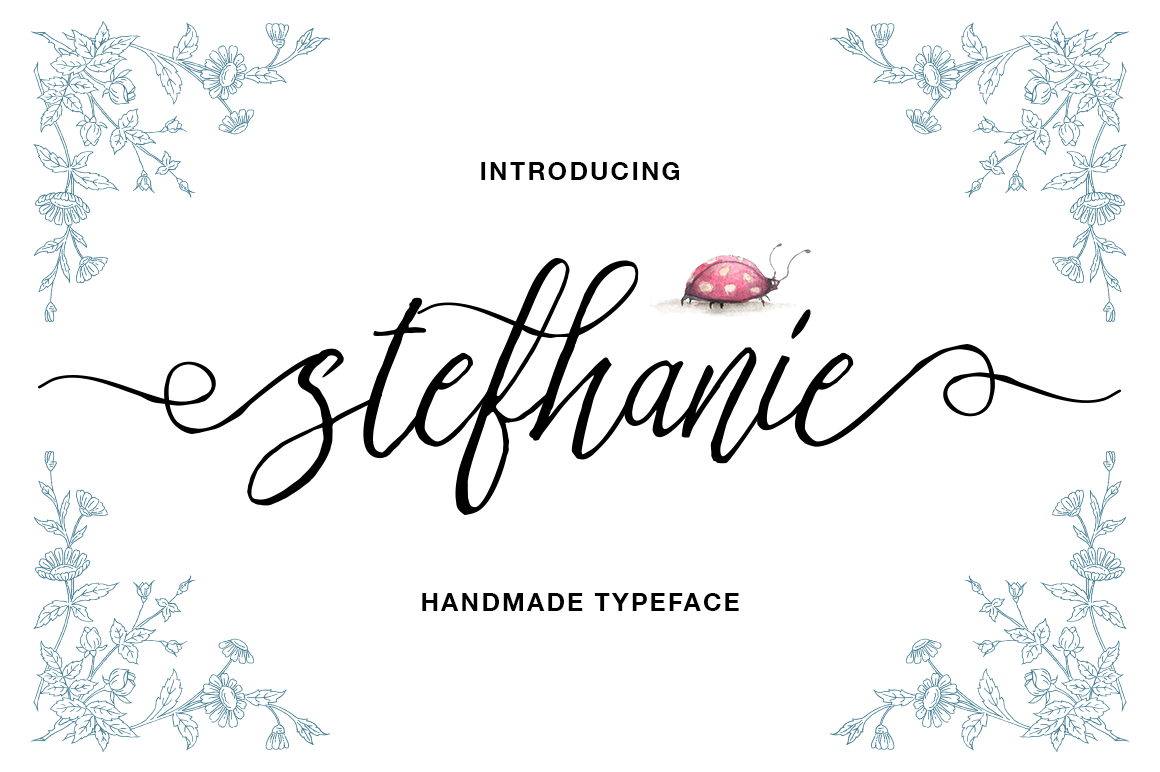
Stefhanie Font
Stefhanie Font is perfect for elegant branding, romantic wedding invitations, feminine beauty products, sophisticated fashion magazines, luxury boutiques, graceful social media graphics, upscale greeting cards, refined editorial design, delicate jewelry catalogs, charming lifestyle blogs, intimate stationery, and sophisticated personal branding.
What makes Stefhanie Font exciting is its graceful femininity that captures the essence of contemporary elegance and sophisticated charm through delicately crafted letterforms that exude refined beauty and timeless appeal. This enchanting typeface embodies the perfect balance of strength and softness, combining flowing curves with confident structure that resonates with audiences seeking authentic elegance and feminine sophistication. The font's gentle character and meticulous attention to detail convey quality and exclusivity while maintaining the warmth and approachability that connects emotionally with discerning women. Its refined personality makes it perfect for brands that want to communicate femininity, grace, and authentic luxury without appearing overly decorative or sacrificing professional credibility.
The Stefhanie Font family includes light, regular, and medium weights, each available with corresponding italic styles. The comprehensive family features elegant alternates, graceful ligatures, and sophisticated flourishes that enhance the font's refined character and provide designers with extensive feminine luxury typography options for complete brand systems.
Whether you're creating feminine luxury brands, designing romantic marketing materials, or developing sophisticated women-focused communications, Stefhanie Font Free Download delivers the elegant charm your refined feminine projects require. This premium typeface excels in applications where grace and emotional connection are crucial for brand positioning and audience engagement in luxury women's markets. The font's sophisticated qualities work beautifully across digital platforms and premium print applications, making it an essential tool for designers creating memorable experiences for style-conscious women. Beauty brands and feminine lifestyle companies choose this font for its ability to communicate elegance while maintaining perfect readability and contemporary relevance. The extensive character set supports multiple languages and includes specialized feminine symbols, expanding its versatility for international luxury women's applications and multilingual sophisticated communications. Professional designers appreciate its seamless performance across various media while maintaining consistent brand expression and emotional resonance with female audiences. When you incorporate this exceptional typeface into your feminine luxury communications, you're selecting a typography solution that celebrates contemporary womanhood and refined taste, ensuring your brand connects authentically with discerning female audiences while maintaining the elegant sophistication essential for success in competitive luxury markets and feminine lifestyle industries that cater to women seeking authentic beauty, quality, and timeless grace in their personal and professional lives.